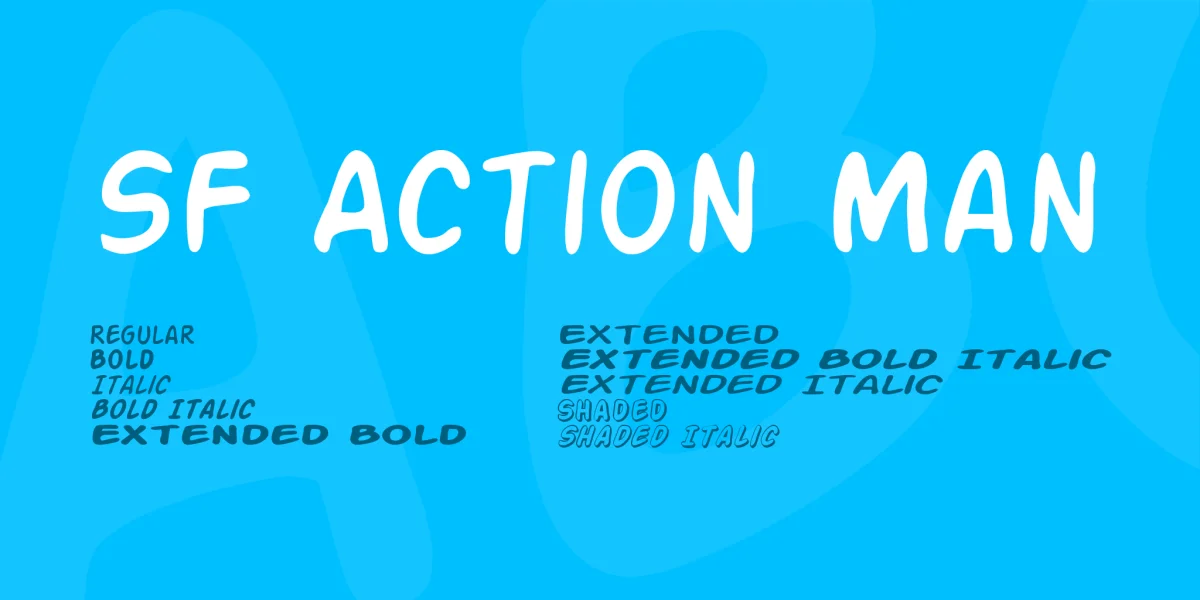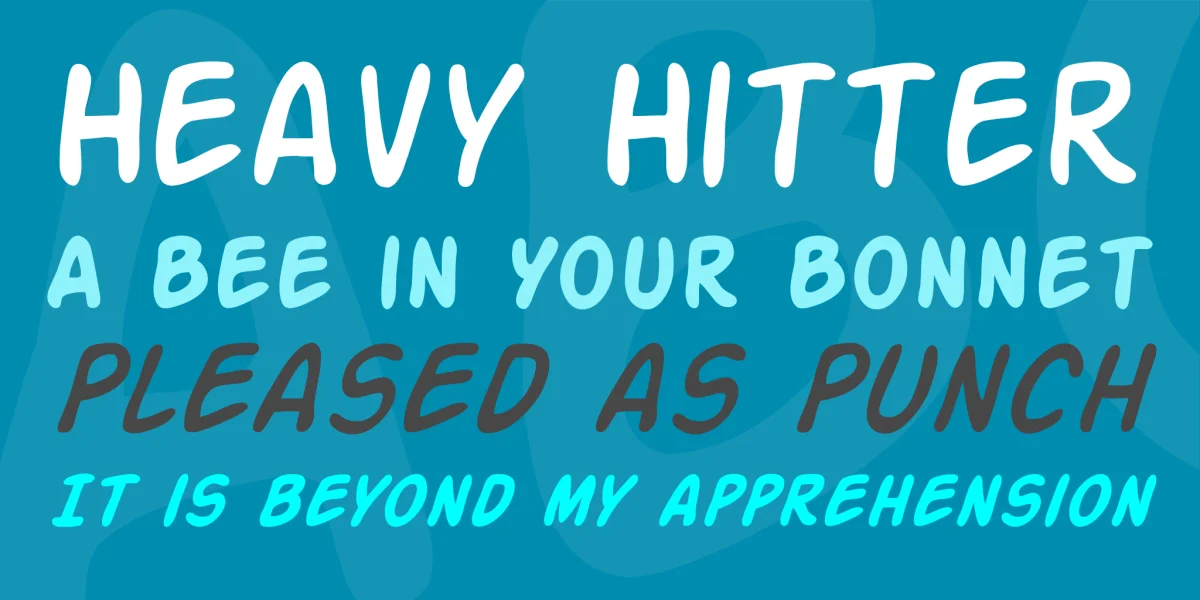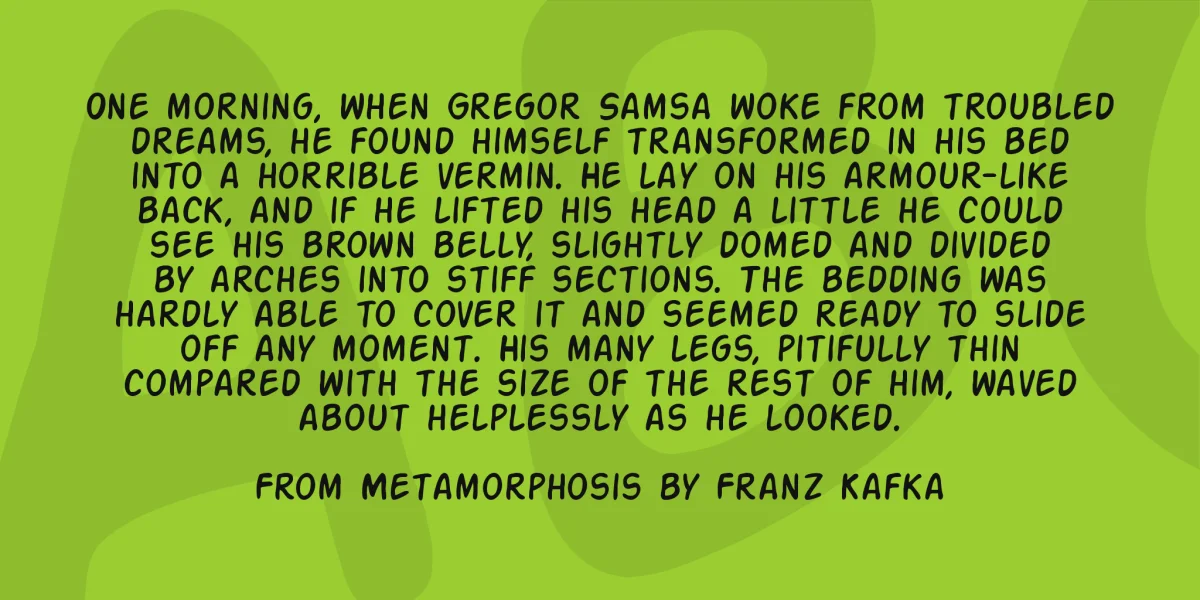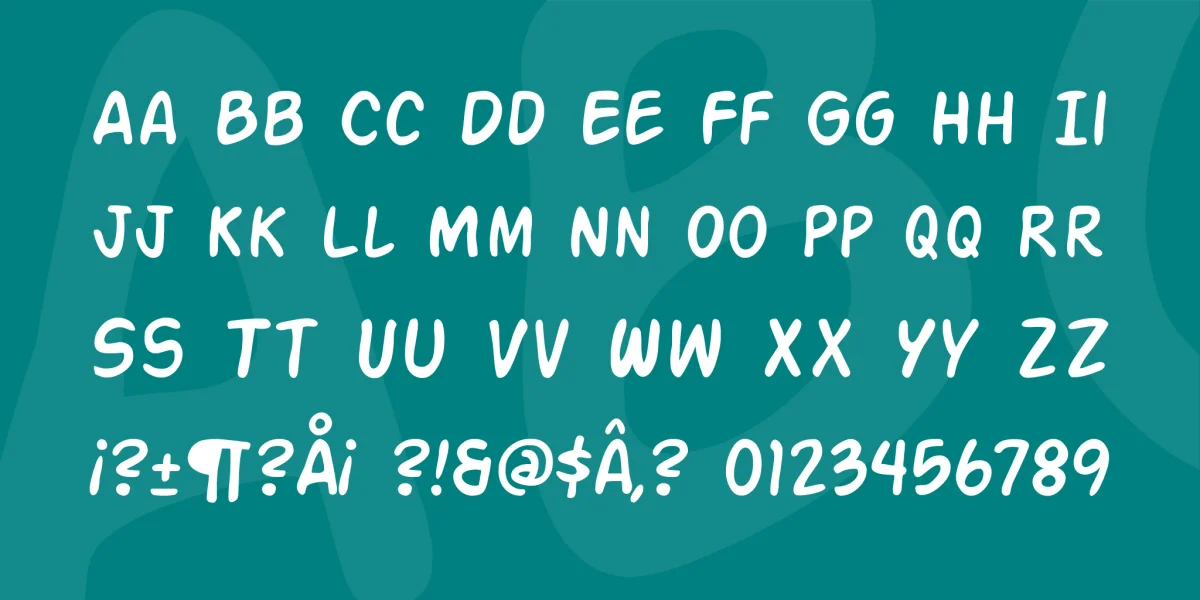
An action-packed cartooning typeface that was a collaboration with Dan Zadorozny of Iconian Fonts, SF Action Man contains uppercase letters, numbers, punctuation, and accented characters.